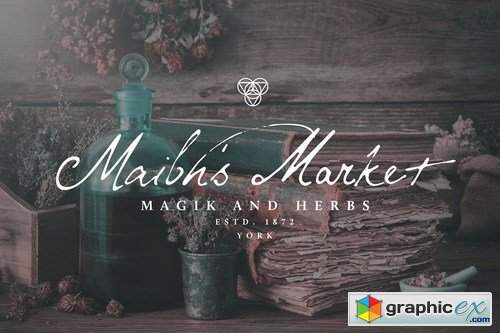
Mythshire vintage script + extras
Frometh a land and time of mages, magik and myth....cometh Mythshire
Mythshire is a handscript font inspired by the cursive and personality-rich handwriting styles of the past. Loaded with a full set of alternate characters (both upper and lowercase) as well as 40+ ligatures there are plenty of options for creating authentically flowing type.